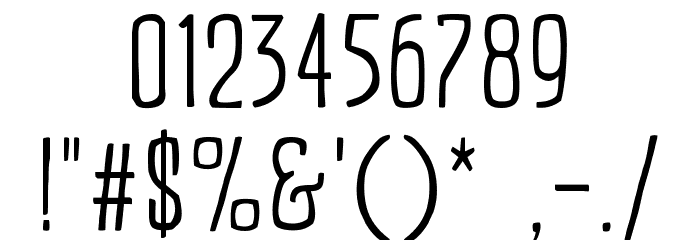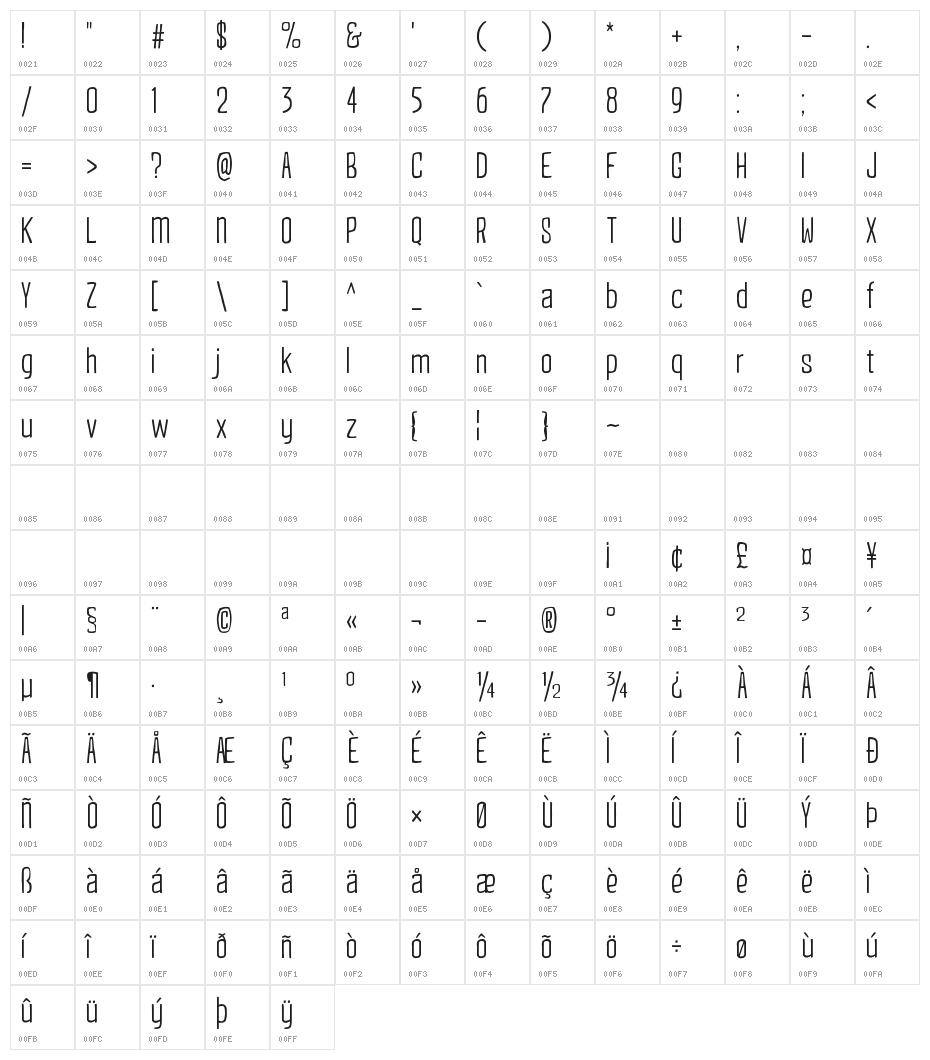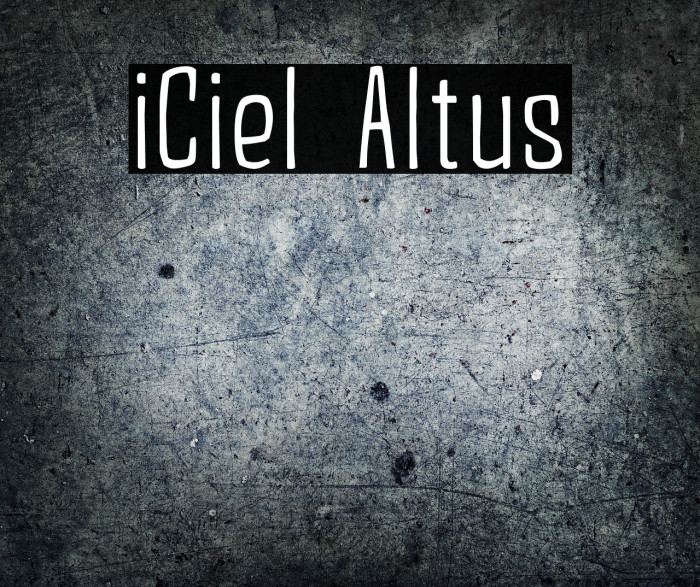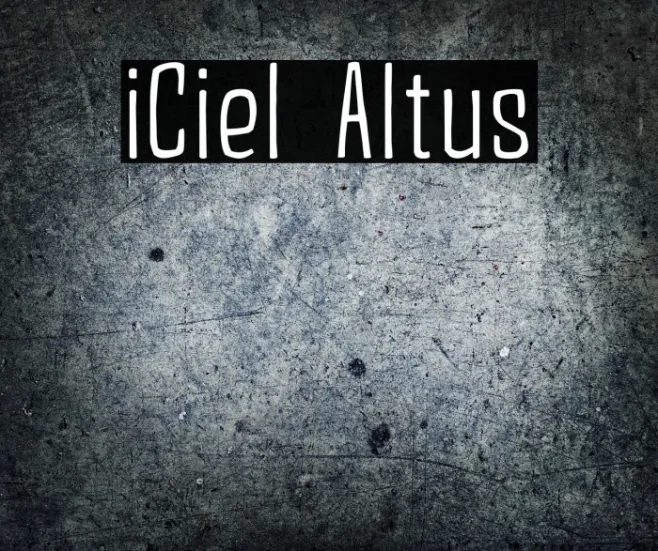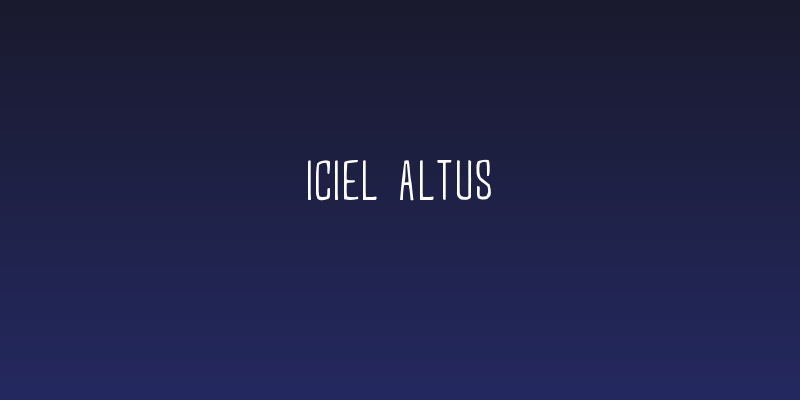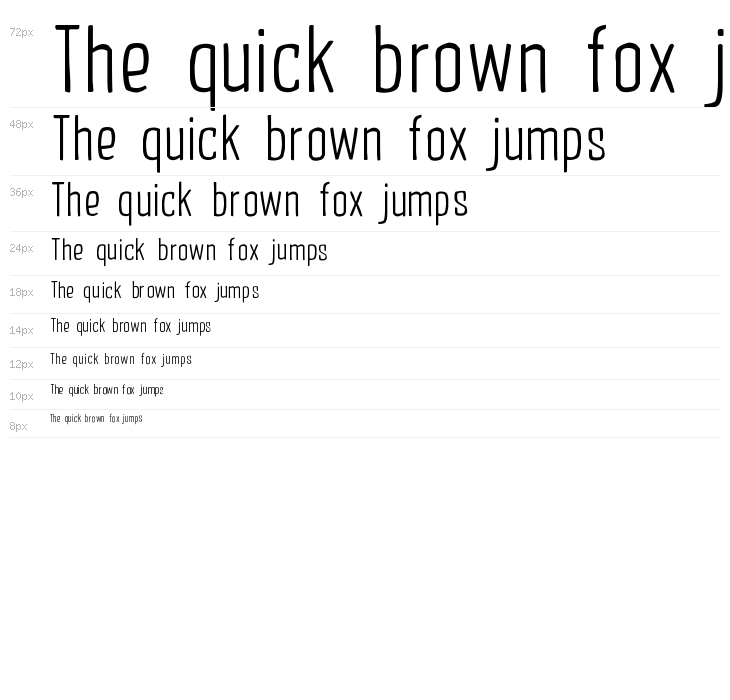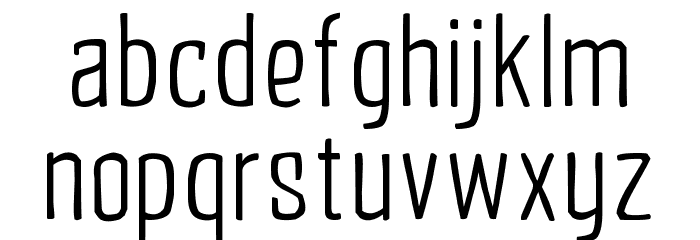
iCiel Altus Font
iCiel Altus Description
This font features a modern and clean design with a slightly condensed structure. The characters are tall and narrow, offering a sleek and streamlined appearance. The strokes are consistent in width, providing a uniform look across all letters and numbers. The uppercase and lowercase letters maintain a harmonious balance, while the numerals are clear and legible. Special characters are distinct and well-integrated into the overall style, making this font versatile for various applications.
| Use Case | Headlines, Logos, Editorial design |
| Proposed Projects | Ideal for branding, advertising, and editorial design where a modern and clean aesthetic is desired. |